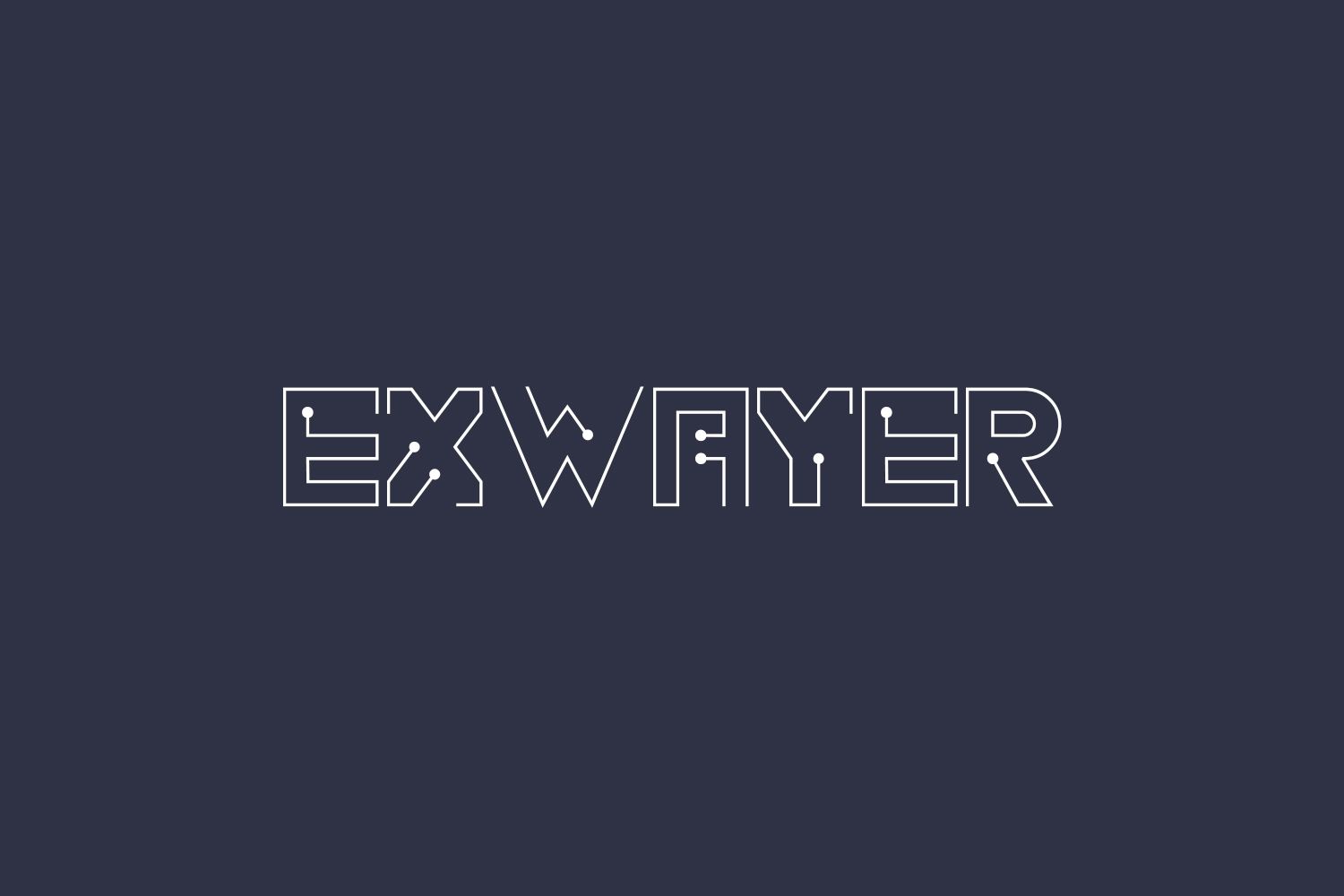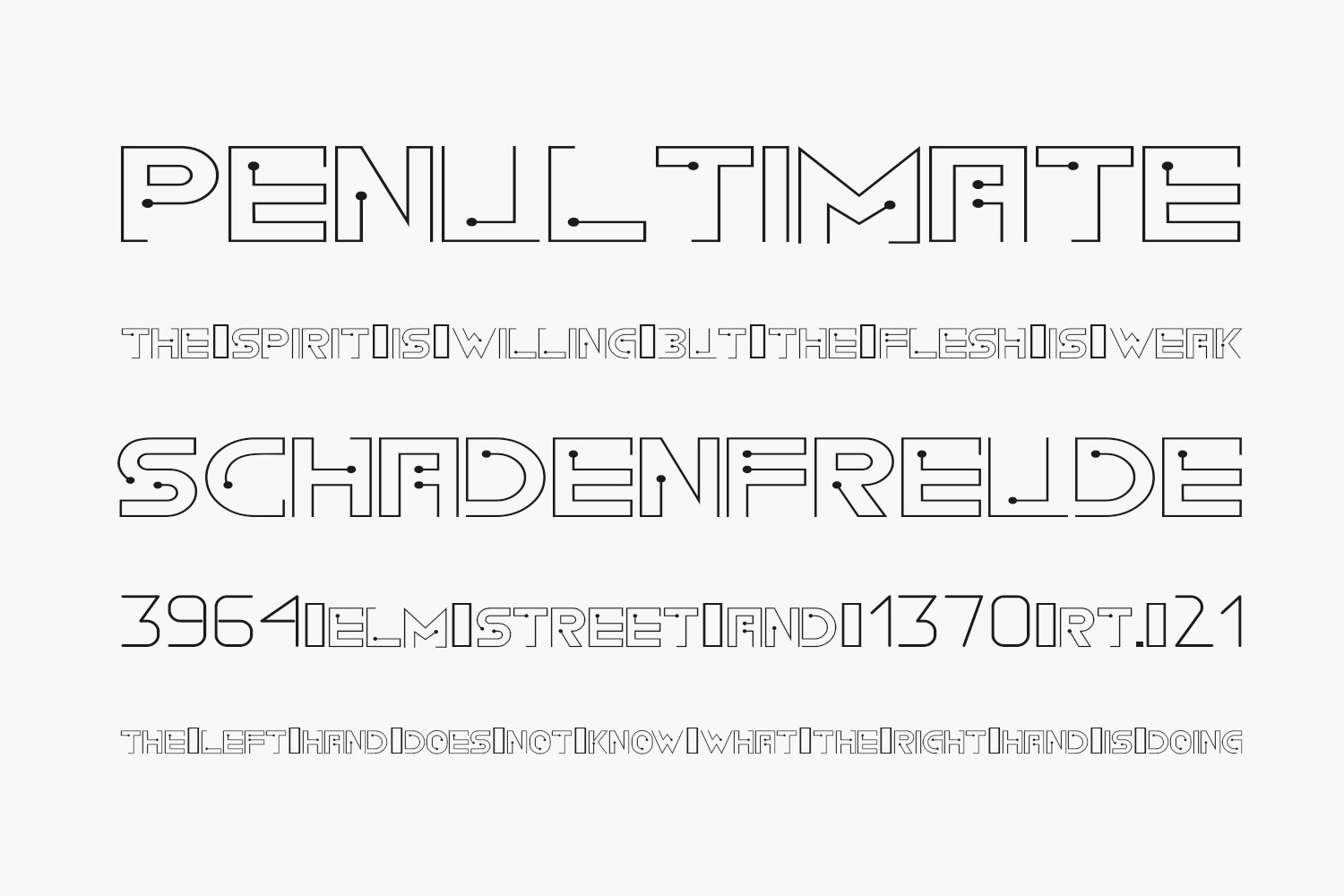
Exwayer Free Font is a cool and techno-looking display font. It is ideal for writing web designs, business cards, or pretty much anything else that requires a unique touch. Exwayer Free Font was designed by Eitiqad is a demo and free for personal use only. Please purchase the full version for commercial use.